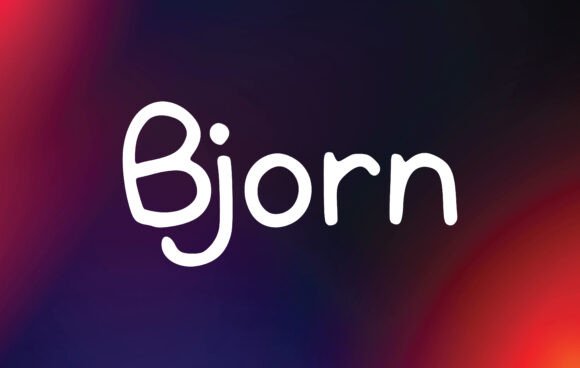
Bjorn Font: Elevate Your Creative Ideas with this Lovely Handwritten Font
In the world of typography, fonts play a crucial role in conveying messages, expressing emotions, and creating visual identities. Among the numerous fonts available, Bjorn font stands out as a lovely and beautiful handwritten font that has the potential to take your creative ideas to the highest level. In this article, we’ll explore the features, benefits, and uses of Bjorn font, and why it’s an excellent choice for creating eye-catching logos, branding, and quotes.
What is Bjorn Font?
Bjorn font is a modern, handwritten font designed to add a personal touch to your creative projects. Its unique and elegant style makes it perfect for a wide range of applications, from logos and branding to quotes and social media graphics. The font’s smooth, flowing lines and subtle imperfections give it a human feel, making it relatable and engaging.
Benefits of Using Bjorn Font
Bjorn font offers several benefits that make it an attractive choice for designers and creatives:
- Unique and Memorable: Bjorn font’s distinctive style ensures that your designs stand out from the crowd and leave a lasting impression.
- Versatile: The font’s adaptability makes it suitable for various applications, from digital media to print materials.
- Easy to Read: Bjorn font’s clear and legible design ensures that your message is conveyed effectively, even at small font sizes.
- Highly Customizable: The font’s flexibility allows you to experiment with different colors, sizes, and styles to match your brand’s identity.
Using Bjorn Font for Creative Projects
Bjorn font is an excellent choice for various creative projects, including:
- Logo Design: Create a memorable and impactful logo that reflects your brand’s personality with Bjorn font.
- Branding: Use Bjorn font to develop a consistent visual identity across your brand’s marketing materials, including business cards, brochures, and website.
- Quotes and Social Media Graphics: Add a touch of elegance and sophistication to your quotes and social media graphics with Bjorn font.
Tips and Tricks for Using Bjorn Font
To get the most out of Bjorn font, follow these tips:
- Pair with Other Fonts: Experiment with pairing Bjorn font with other fonts to create a unique and harmonious typography.
- Adjust Font Size and Color: Adjust the font size and color to suit your design’s requirements and ensure optimal readability.
- Use in Combination with Images: Combine Bjorn font with high-quality images to create visually appealing graphics.
Bjorn Font vs. Other Handwritten Fonts
Compared to other handwritten fonts, Bjorn font stands out for its:
- Unique Style: Bjorn font’s distinctive style sets it apart from other handwritten fonts.
- Legibility: Bjorn font’s clear and legible design makes it more readable than many other handwritten fonts.
- Versatility: Bjorn font’s adaptability makes it suitable for a wider range of applications than many other handwritten fonts.
In conclusion, Bjorn font is a lovely and beautiful handwritten font that has the potential to elevate your creative ideas to the highest level. Its unique style, versatility, and legibility make it an excellent choice for creating eye-catching logos, branding, and quotes. By following the tips and tricks outlined in this article, you can unlock the full potential of Bjorn font and take your designs to new heights.
- What is Bjorn font? Bjorn font is a modern, handwritten font designed for creative projects.